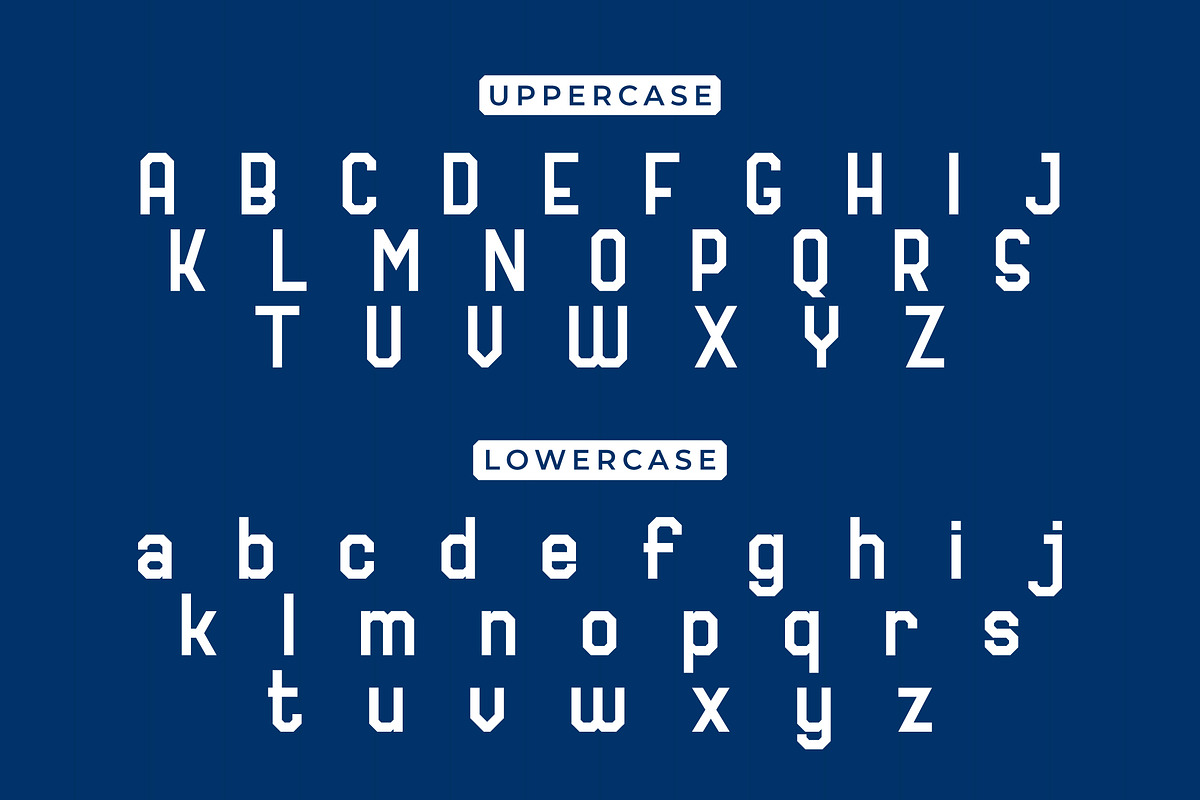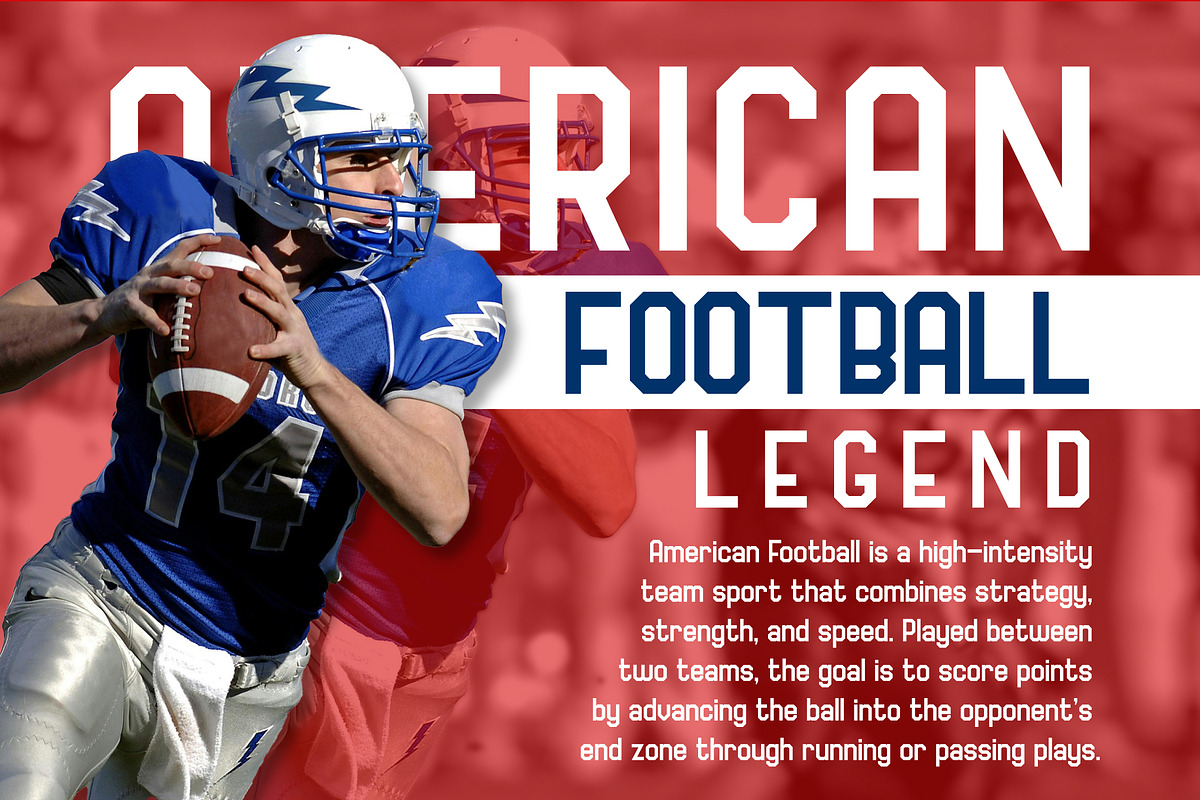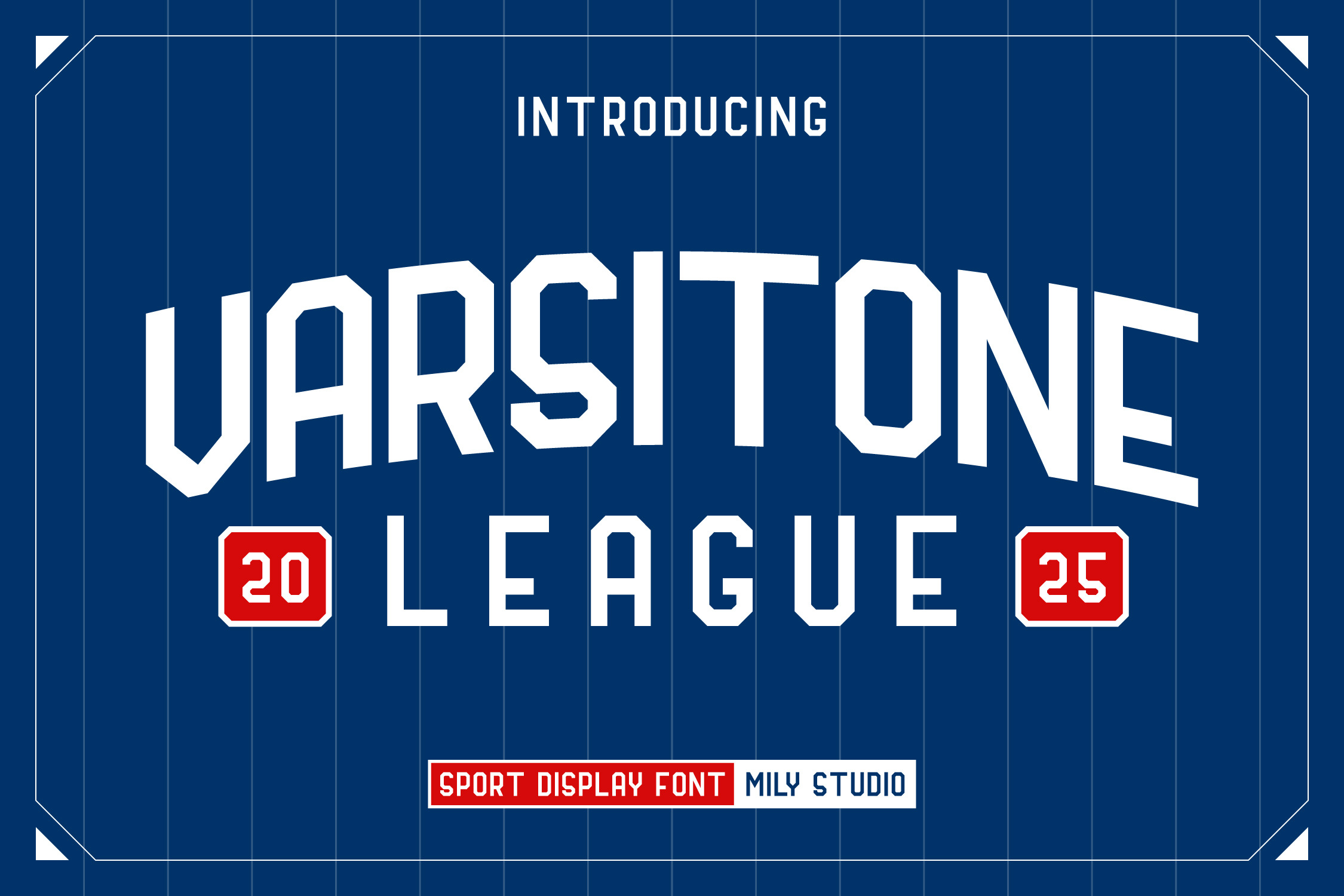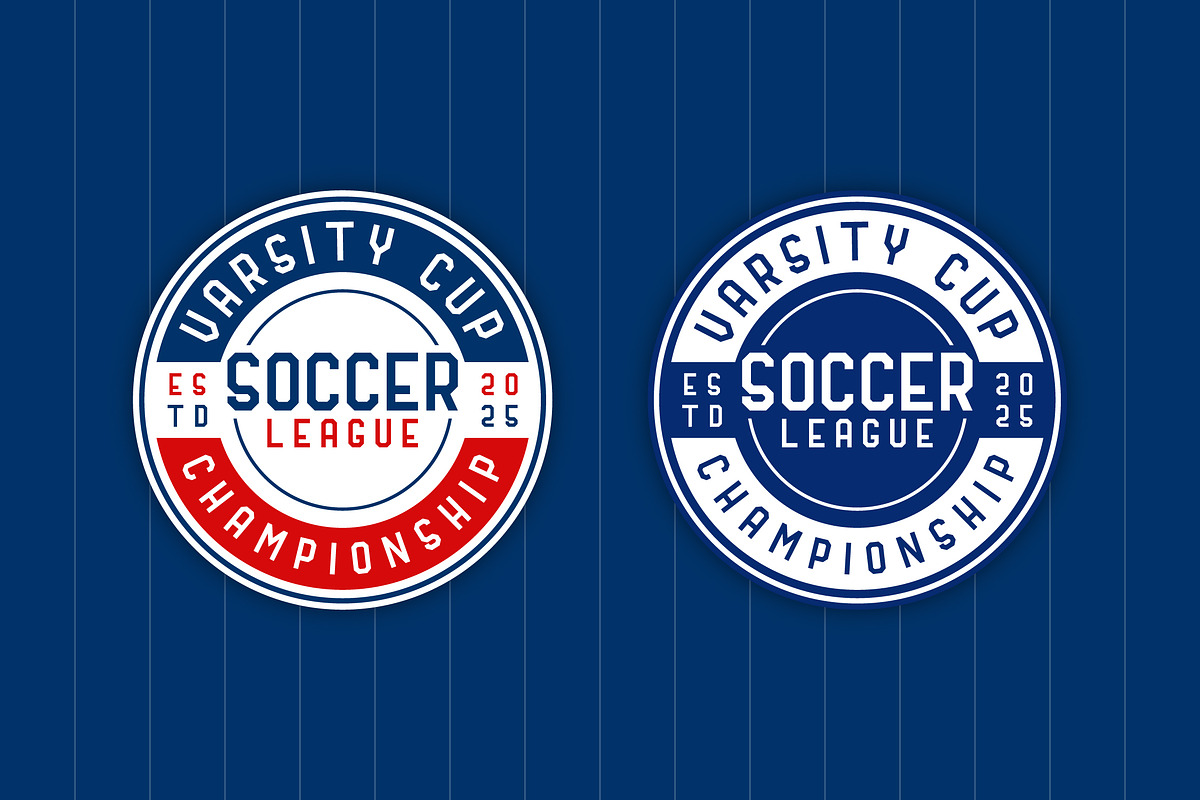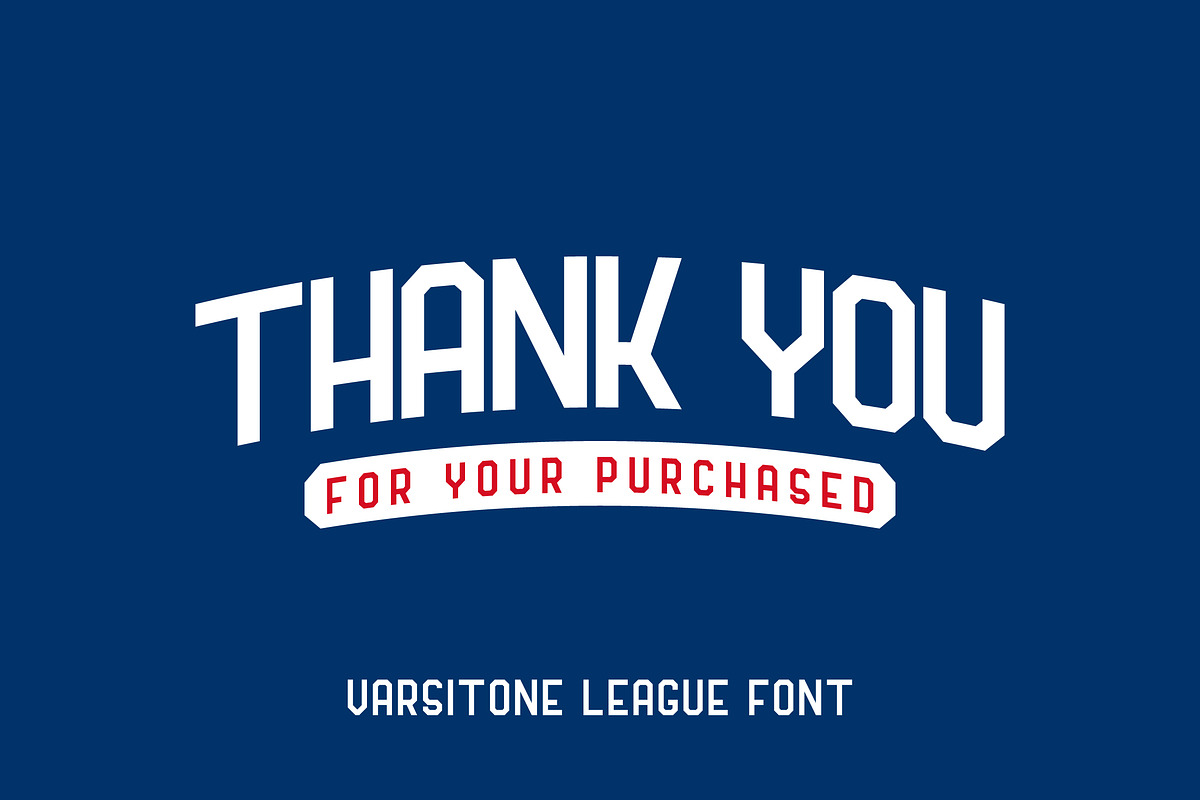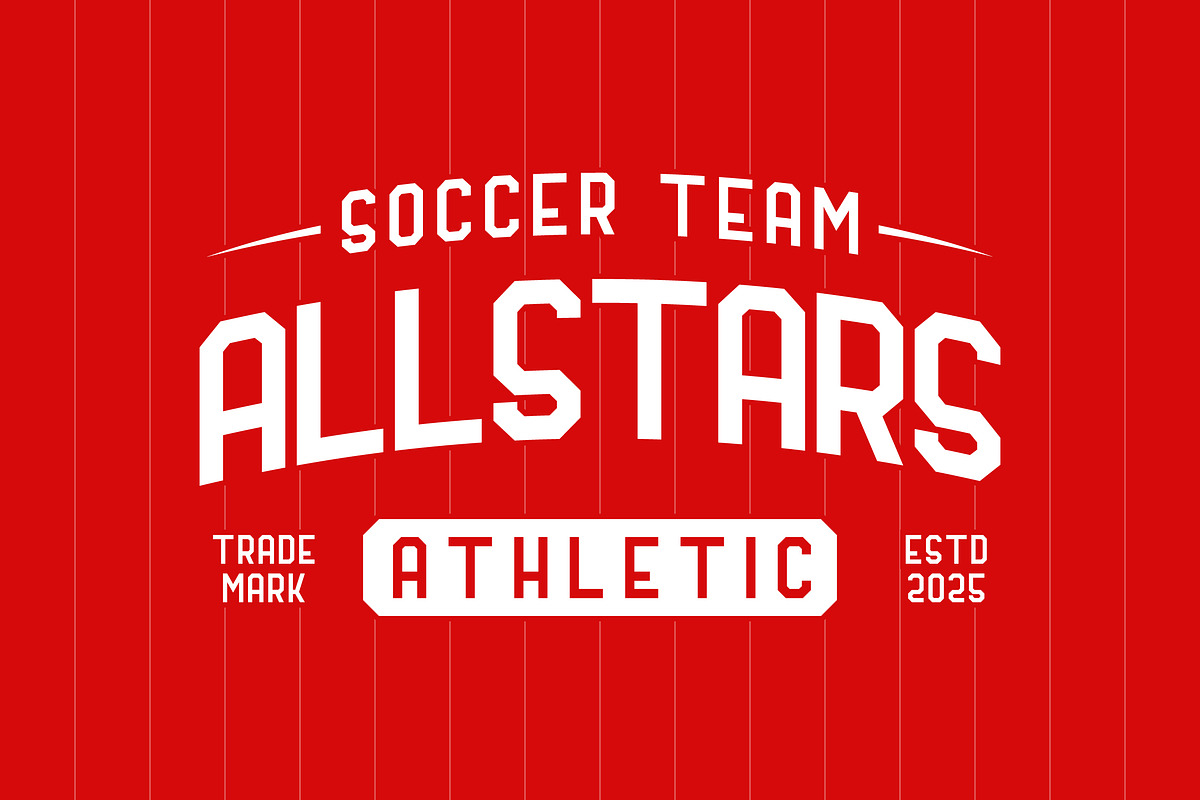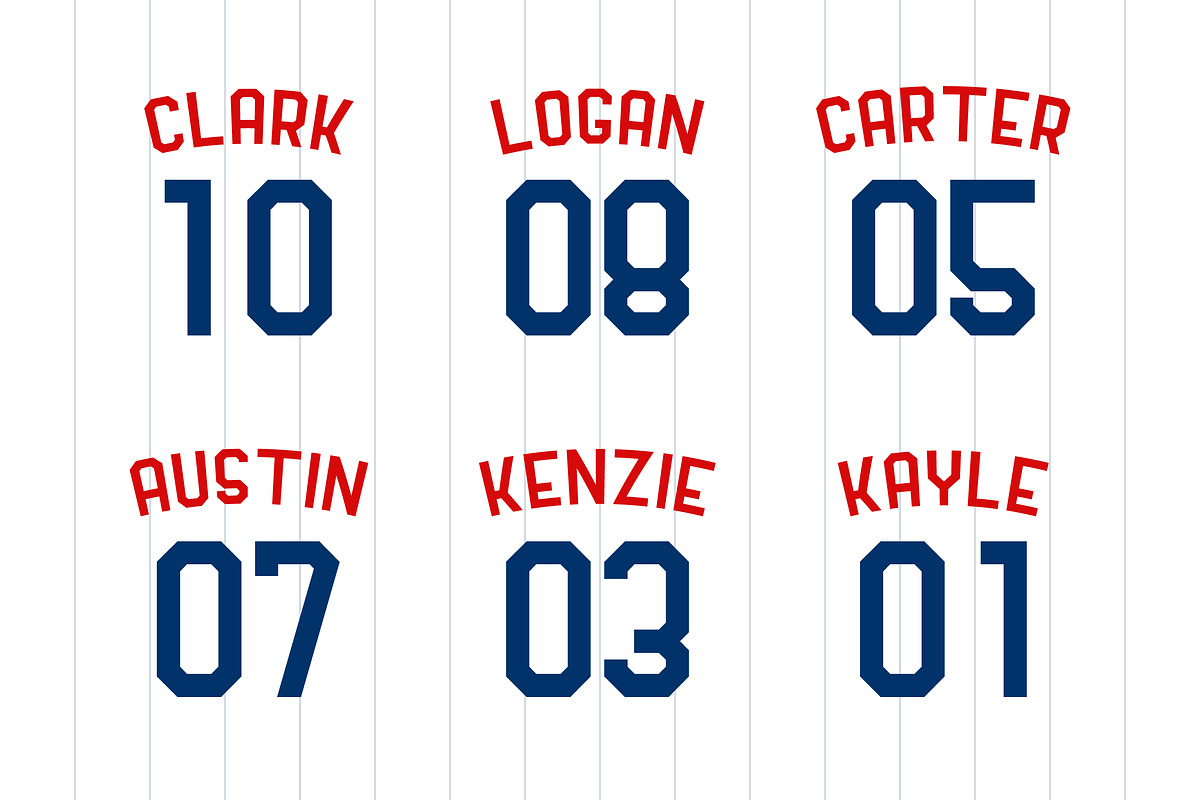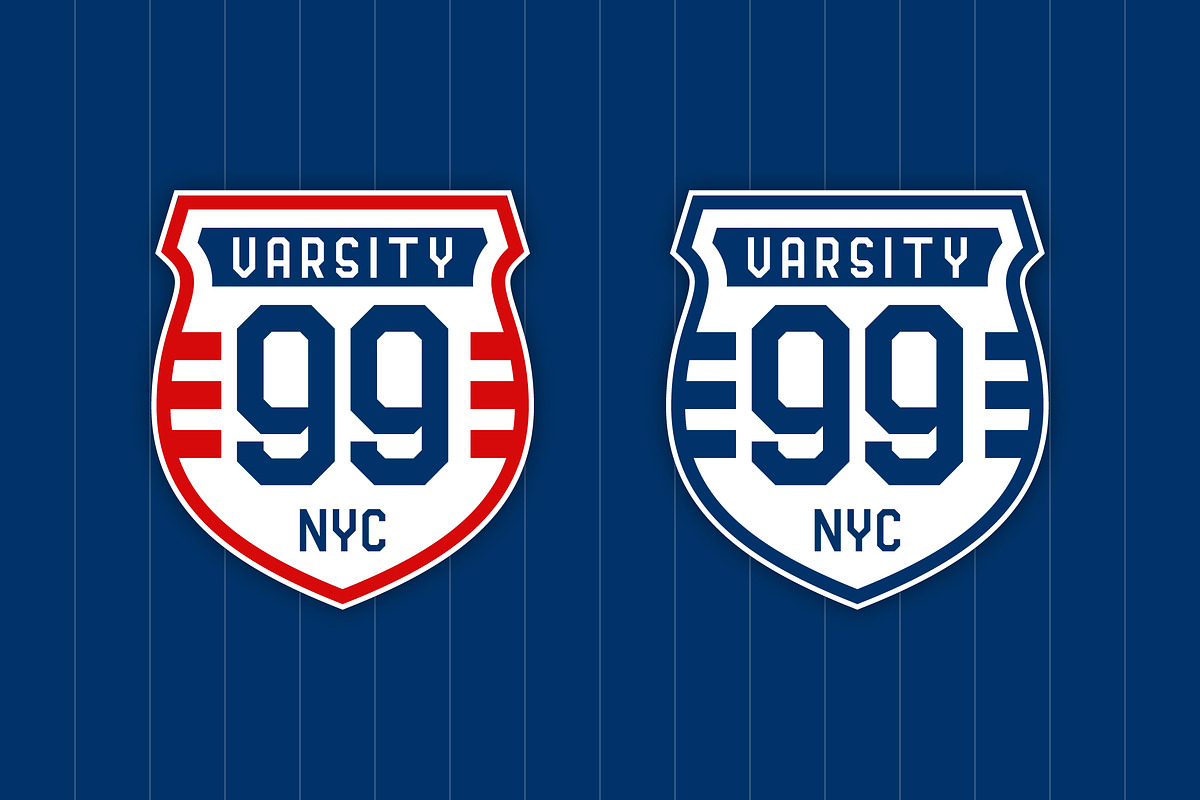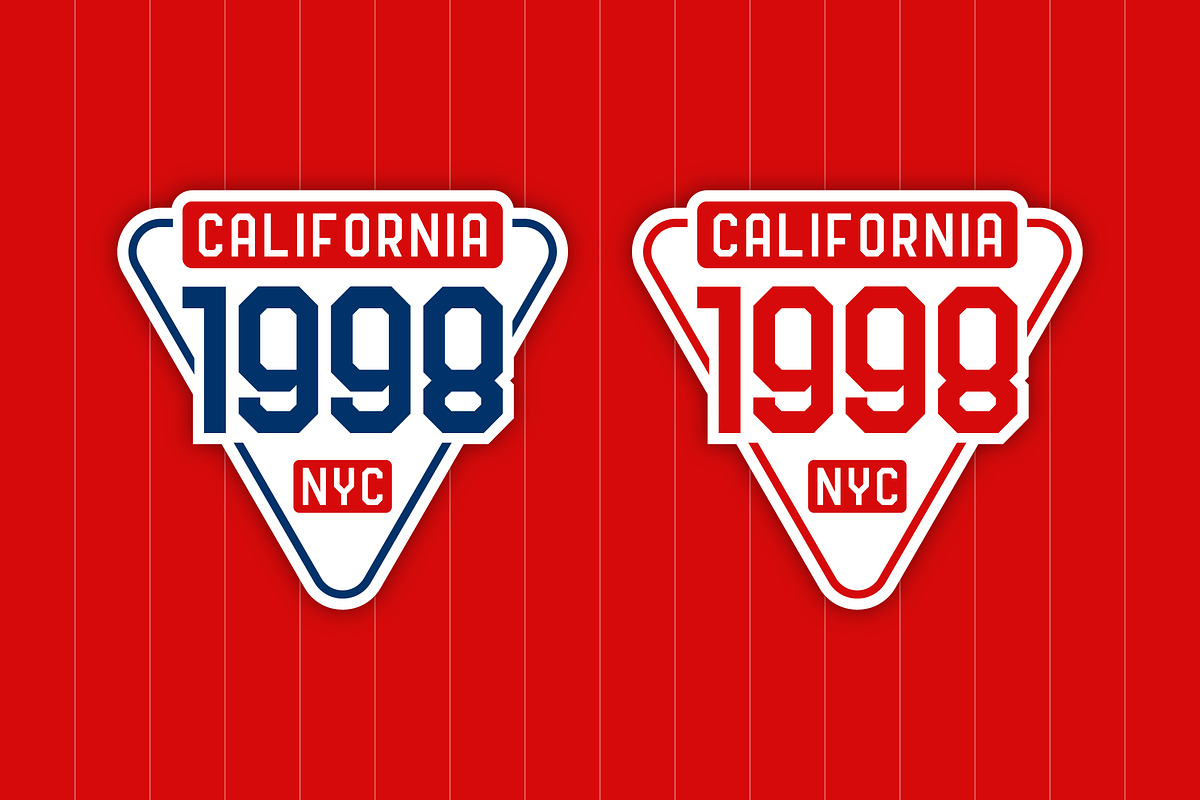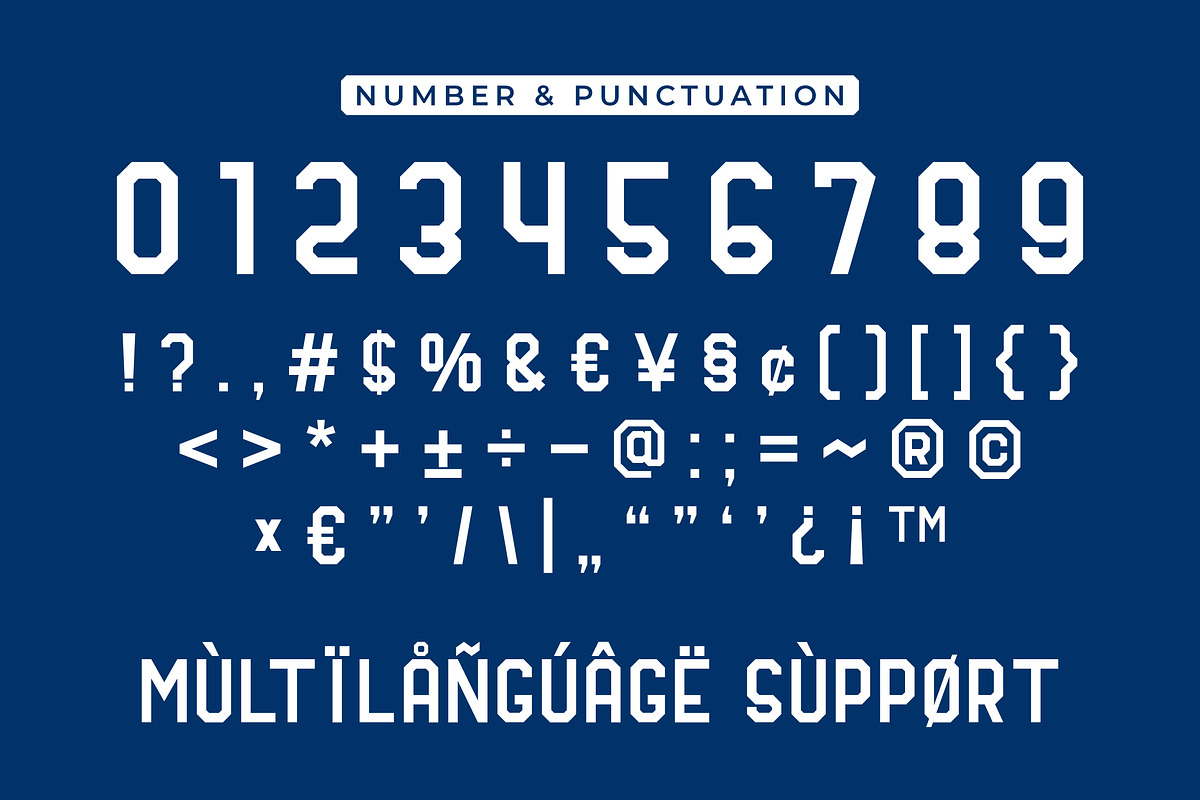
Varsitone League - Sport Font
Varsitone League is a bold varsity display font inspired by classic college sports lettering. With strong blocky shapes, clean serifs, and a proud athletic spirit, this typeface captures the essence of team pride, competition, and legacy.
Perfect for jersey numbers, sports team logos, campus apparel, championship posters, and vintage-inspired athletic branding, Varsitone League brings power and tradition to every letterform. Whether you're designing for a football league, a college-themed project, or a retro-style headline, this font delivers maximum impact with varsity flair.
- Multilanguage